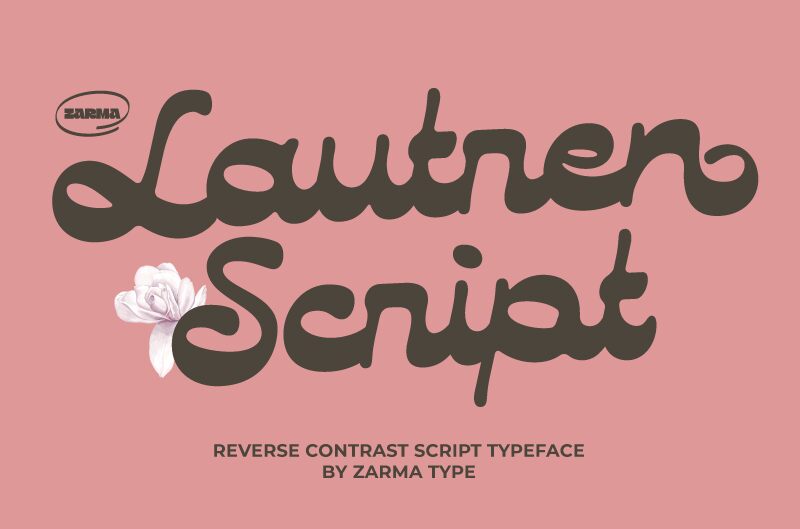
Lautren, a delightful bold script with reversed contrast, is the latest creation from Zarma Type Foundry. Its handwritten style exudes a playful and fun summer vibes mood, while maintaining a neat and smooth appearance. The semi-expanded width adds a touch of uniqueness to any project.
Lautren offers a plethora of opentype features, including contextual alternates, stylistic sets, ligatures, and swashes at the ending of the letters. This versatile font is suitable for various creative projects such as posters, invitations, branding materials, social media graphics, and more. Let your imagination run wild with Lautren!